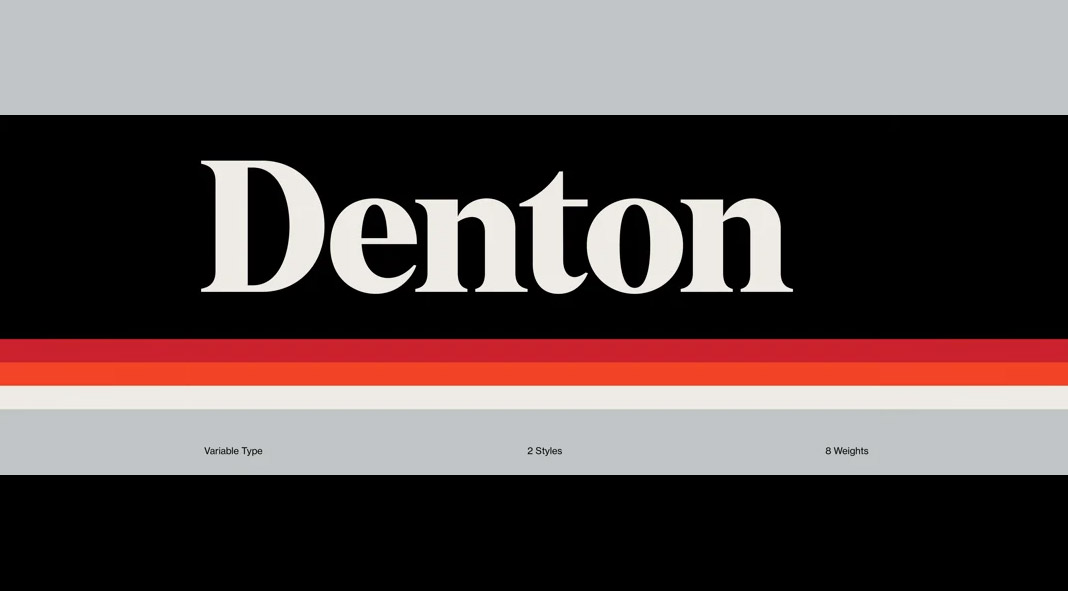
Denton, a typeface inspired the warmth, bringing expressive of 70s design.
We told you that vintage-inspired fonts will be still a big thing in 2021 and the following typeface is no exception. Designed by Ellen Luff for Peregrin Studio, the Denton font combines modern typography with the best 70s design assets. This beautiful display typeface comes as a variable font family including two styles (Denton and Denton 70) plus various weights.
The basic Danton style is based on a stable typeface, which offers greater clarity at a larger range of sizes. Denton 70 focuses on display use. It maintains that typical expressive 70s tight letter-spacing with subtly modified letters and beautiful ligatures.